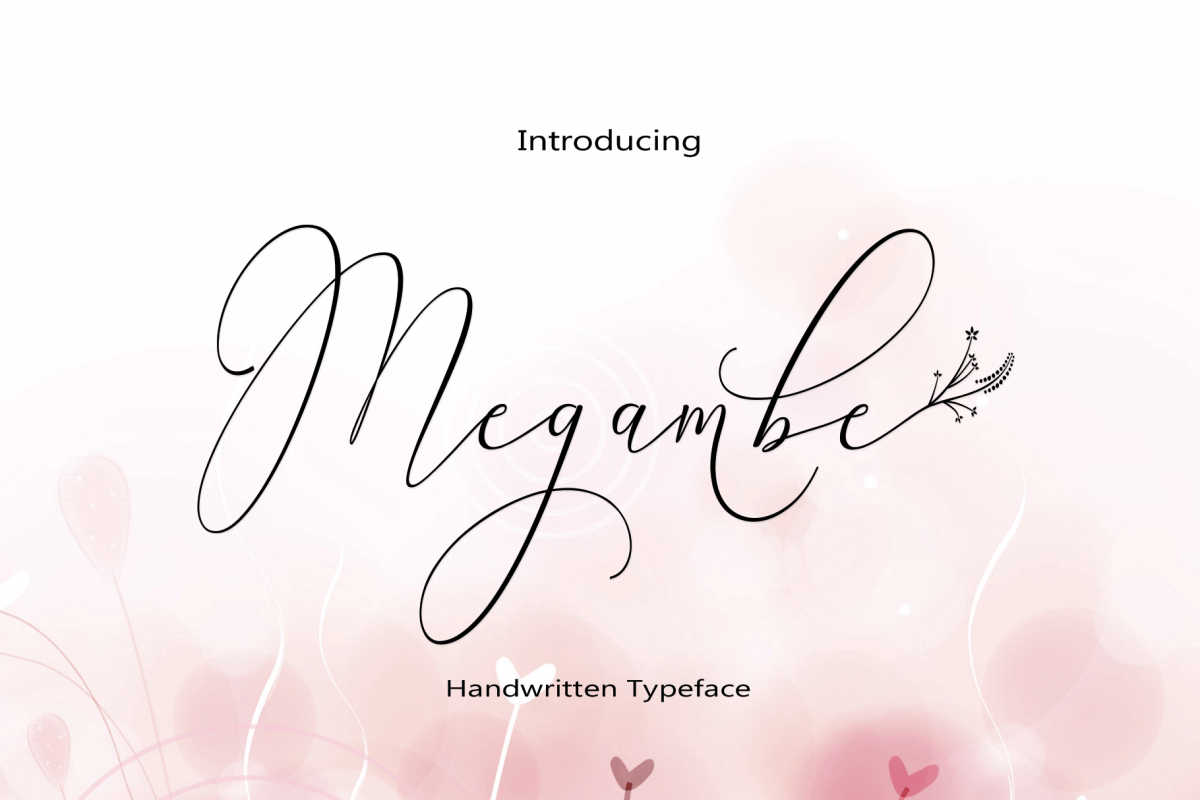
Megambe
Say hello to Megambe Font!
An elegant handwriting font. Perfect for making elegant stylish statements - or adding a touch of class to your designs. This script has a multitude of natural looking ligatures and alternate characters in its OpenType features - making the font look as close to natural handwriting as possible.
Megambe is perfect for many different projects such as logos & branding, invitation, stationery, wedding designs, social media posts, advertisements, product packaging, product designs, label, photography, watermark, special events, etc.
Megambe includes capital and lowercase letters, alternates, and Ligatures